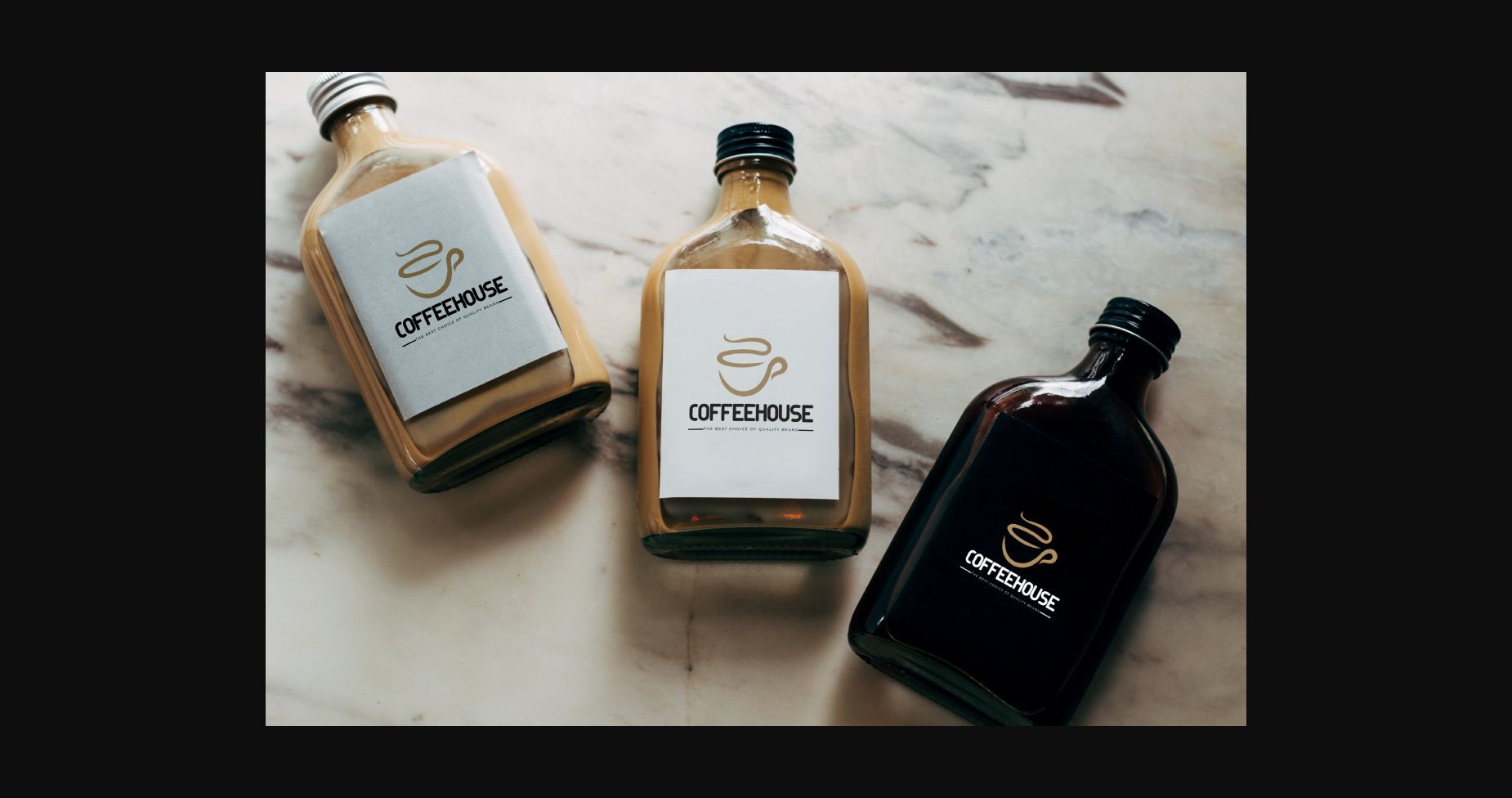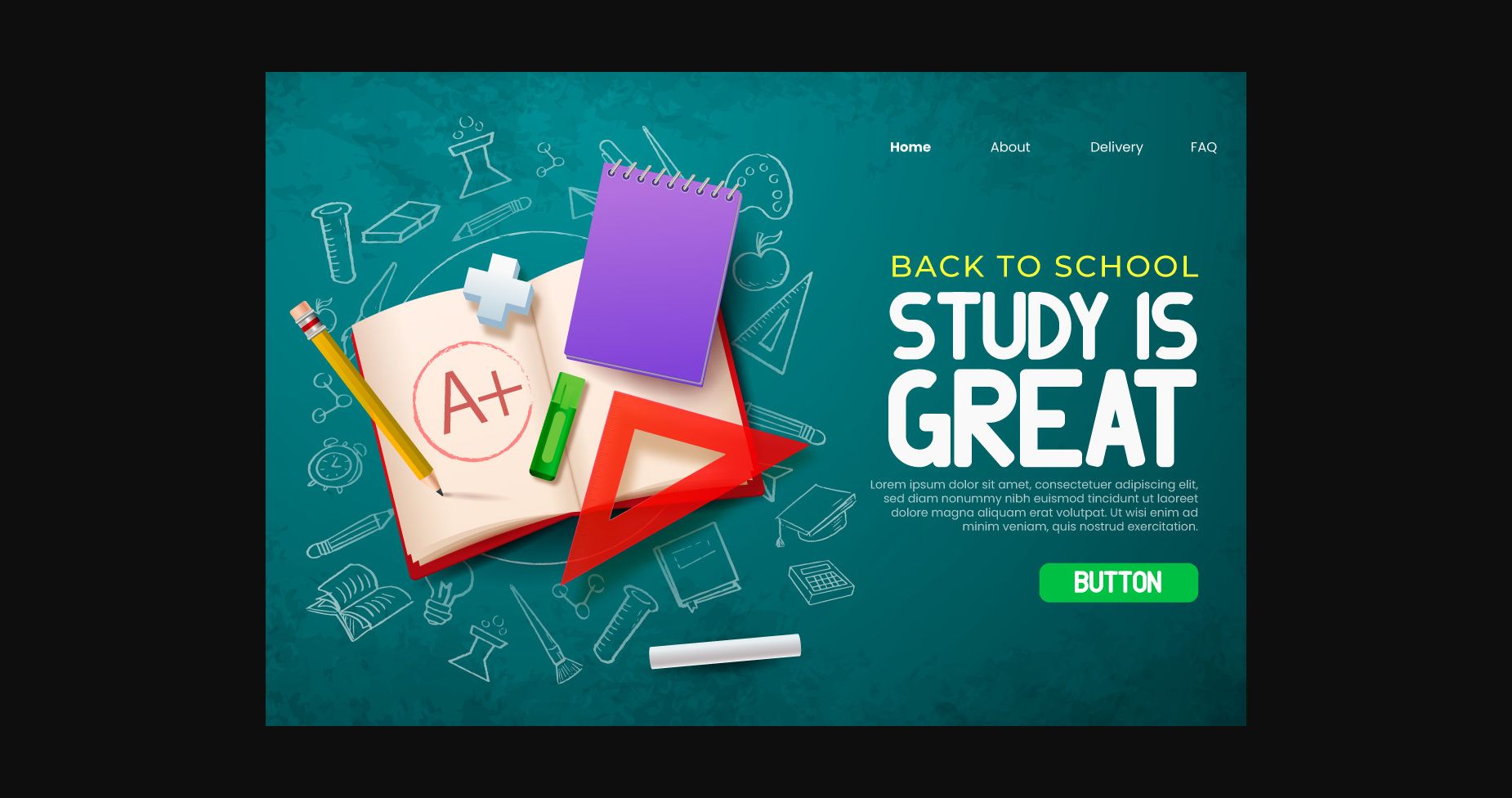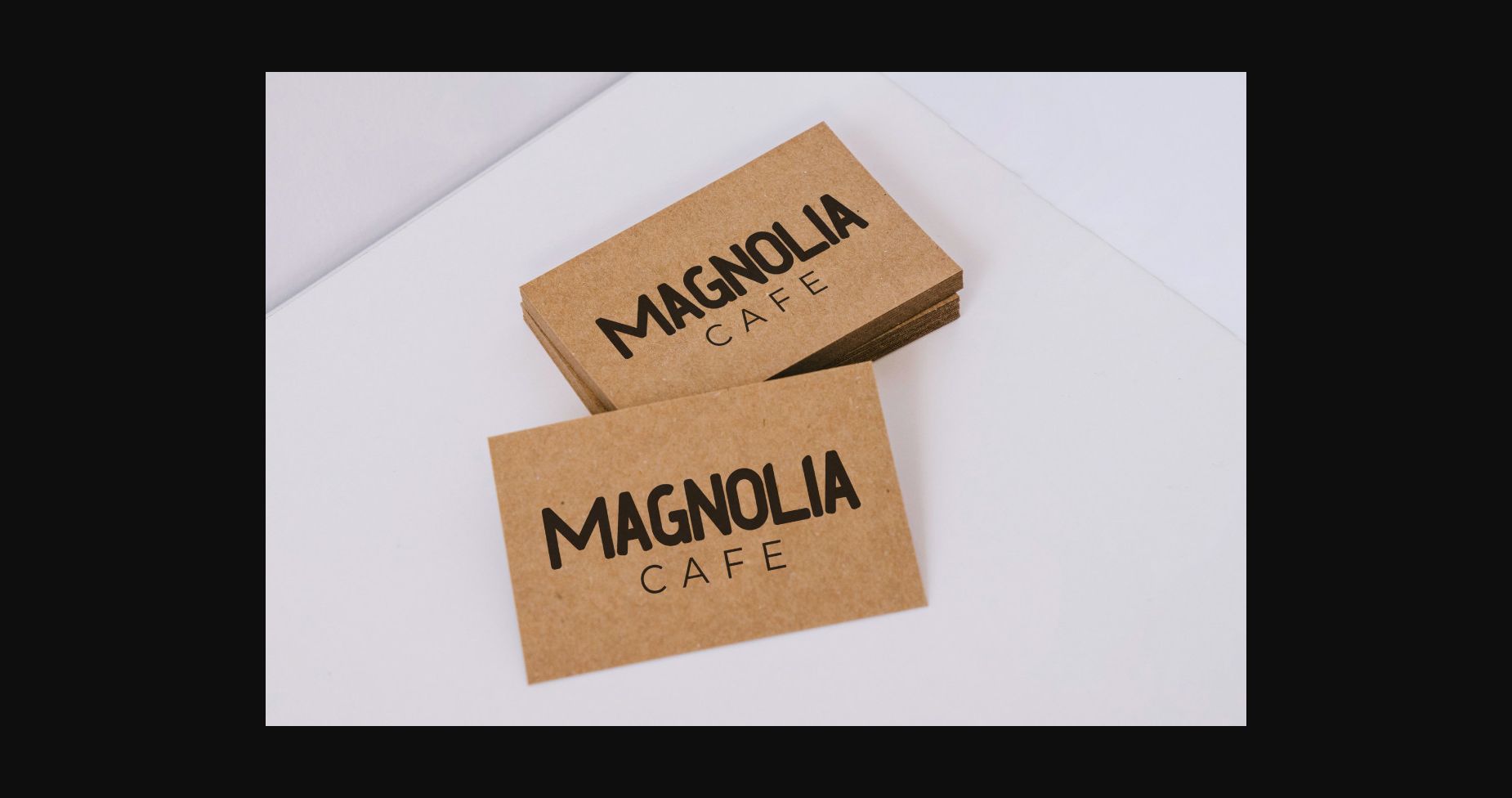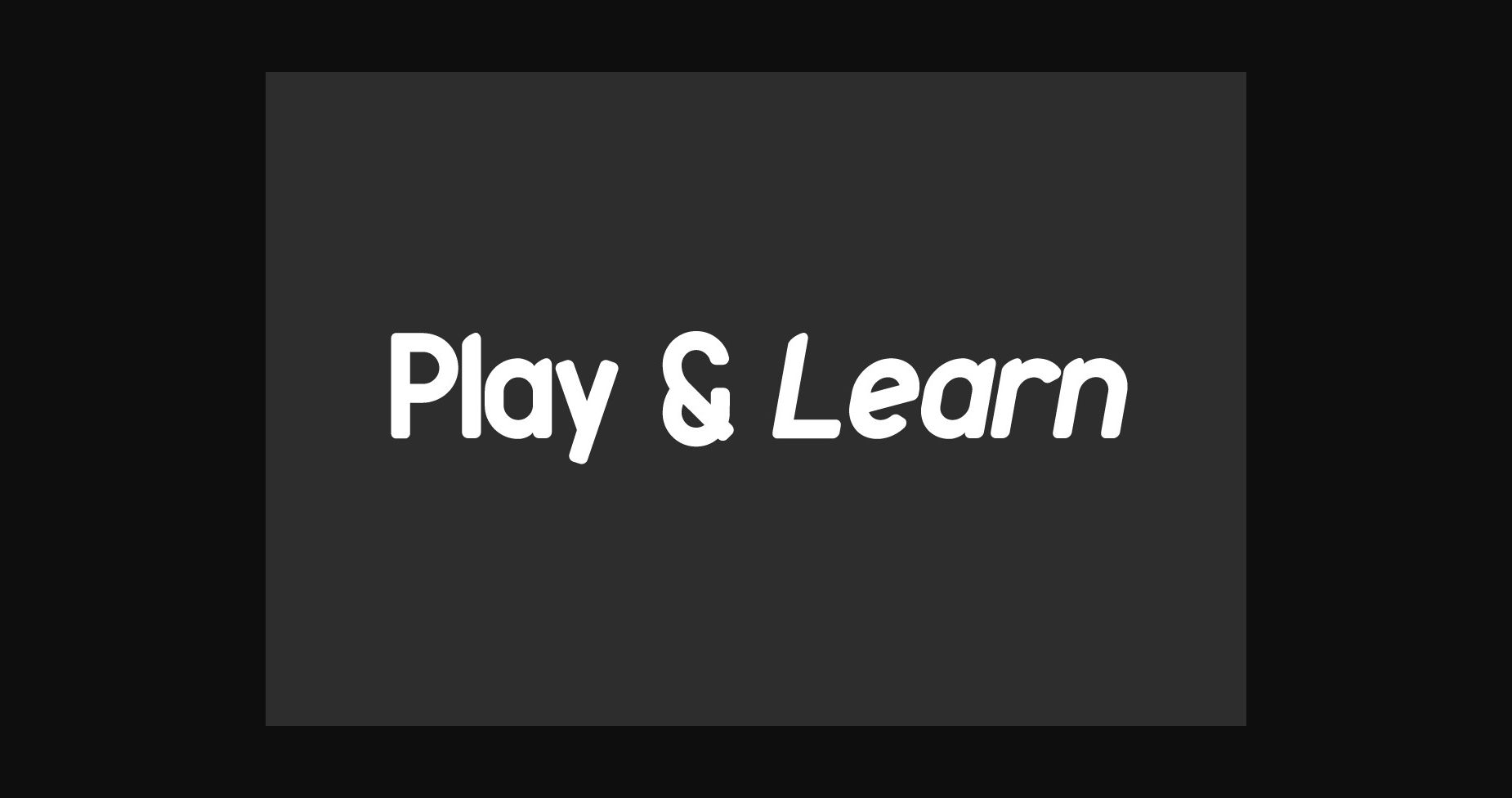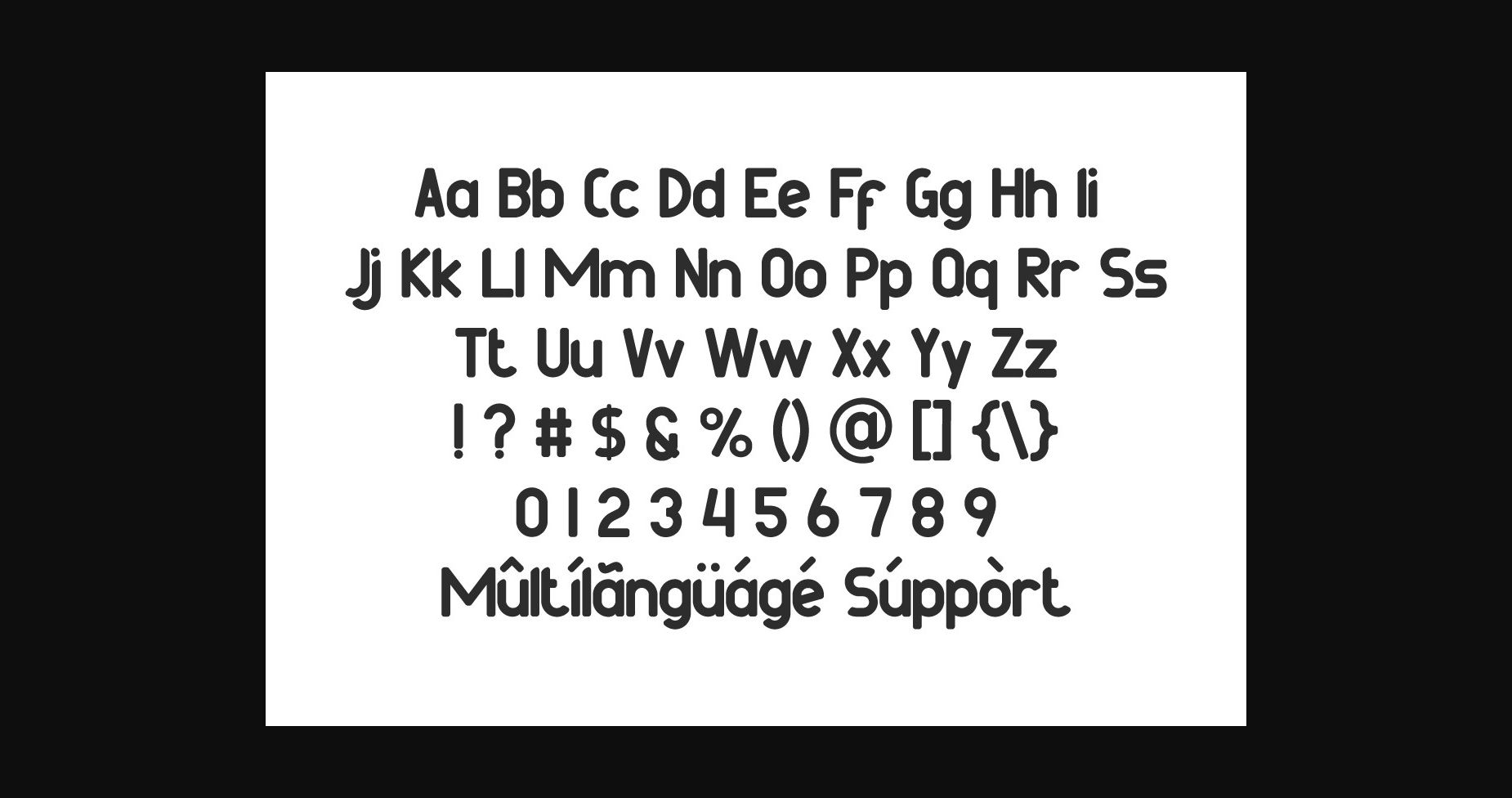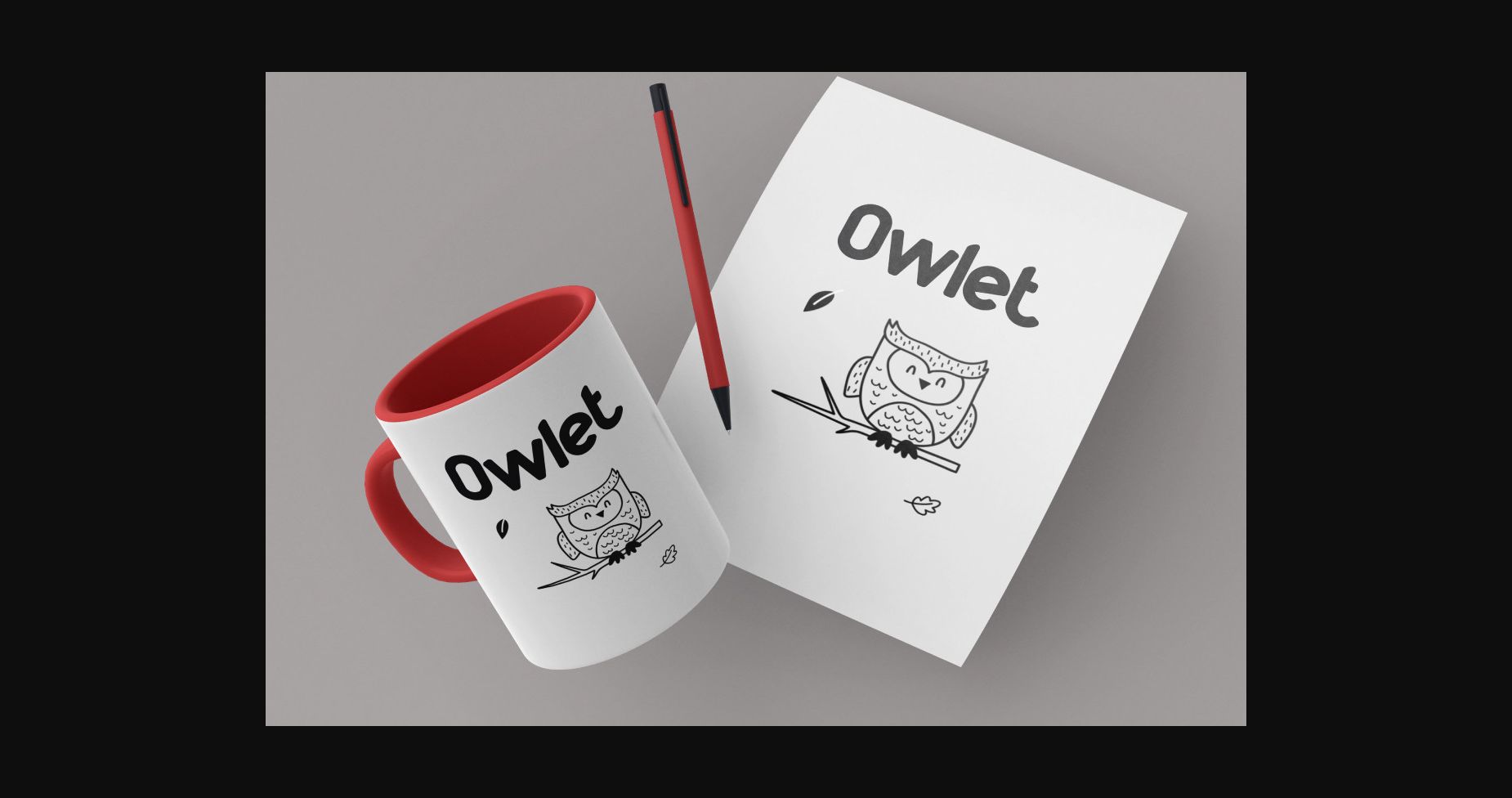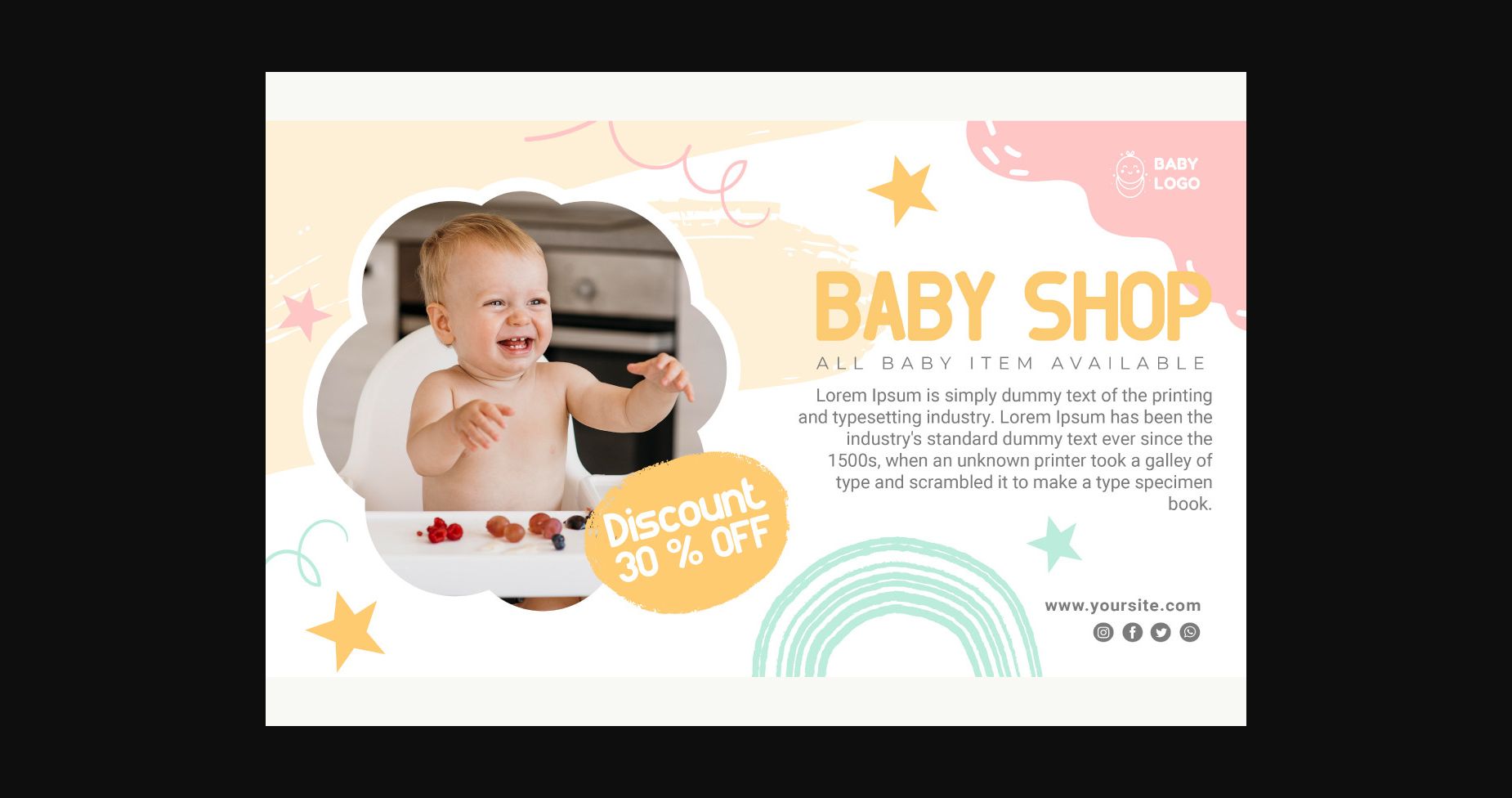
Play & Learn Font
About Play & Learn Font
Play & Learn is a cool and simple lettered sans serif font. No matter the topic, this font will be an incredible asset to your fonts’ library, as it has the potential to elevate any creation.